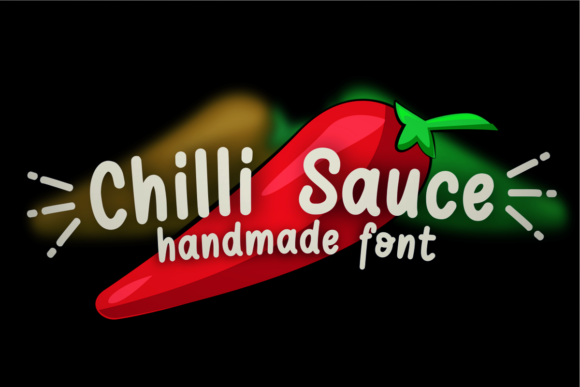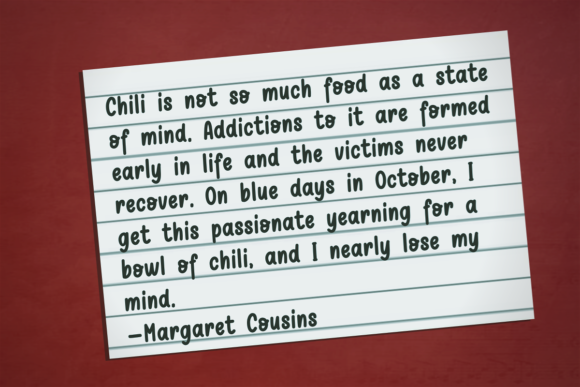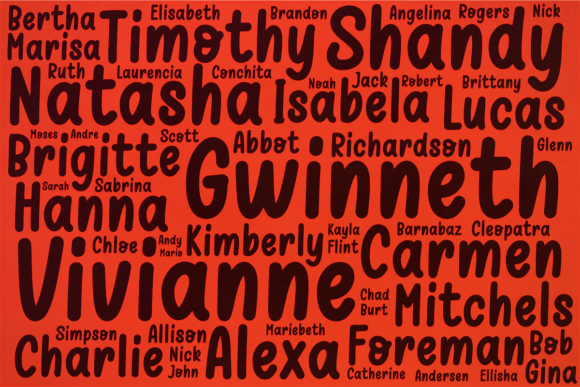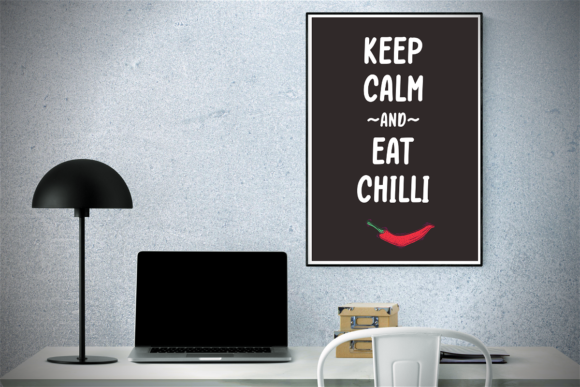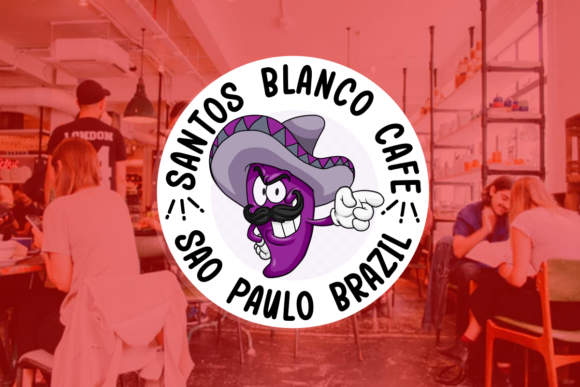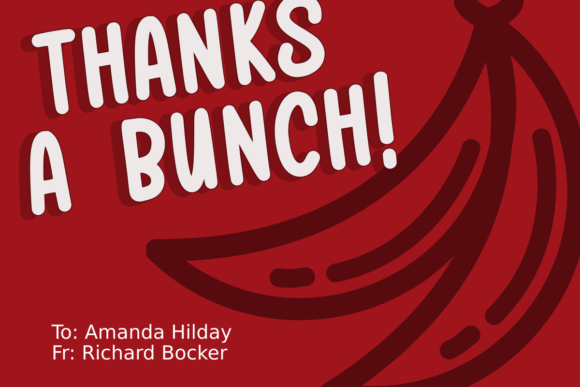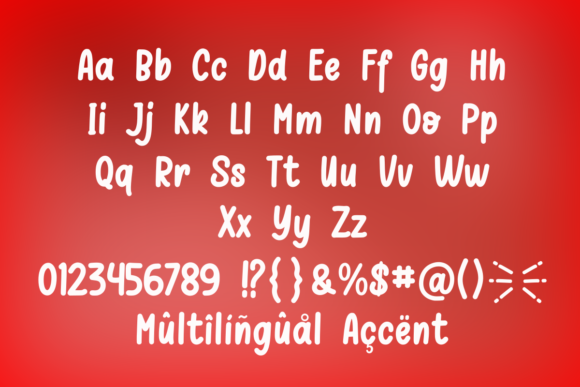
The Perfect Blend of Style and Function: Chilli Sauce Font
Have you ever found yourself stuck in a creative rut, staring at a blank canvas, wondering what’s missing to bring your design to life? That’s when the magic happens – you stumble upon the perfect font, and suddenly, everything clicks into place. For designers, this moment is a game-changer, and we’re excited to share with you our latest discovery: Chilli Sauce Font.
This chic and natural lettered handwritten font is more than just a pretty face; it’s a versatile tool designed to elevate your designs to the next level. With its neat and simple style, Chilli Sauce Font is perfect for a wide range of projects, from branding and marketing materials to digital graphics and social media posts. Whether you’re a seasoned pro or a design newbie, this font has the potential to become your go-to companion for all your creative endeavors.
Chilli Sauce Font Key Features
- Font Family: Chilli Sauce is a unique, hand-drawn font with a spicy twist, perfect for adding a bold and playful touch to designs.
- Characters and Glyphs: Chilli Sauce font includes a wide range of characters and glyphs, including Latin, Cyrillic, and Greek alphabets, as well as various punctuation and symbol sets.
- Unique Characteristics: The font’s distinctive, hand-drawn style and bold, expressive lines make it an ideal choice for designs that require a touch of personality and whimsy.
Chilli Sauce Font Review
Overall, I was quite excited to dive into the Chilli Sauce Font and see what it had to offer. As a designer, I appreciate fonts that bring a unique personality to a project.
- Playful and energetic vibe: The font’s bold lines and quirky characters give it a fun and lively feel that’s perfect for projects that need a boost of energy.
- Great for headings: The font’s larger text sizes look fantastic, making it a great choice for headings and titles.
- Unique character set: The font’s character set is diverse and includes a range of symbols and special characters that add to its charm.
- Difficult to read in smaller sizes: While the font looks great in larger sizes, it can be challenging to read in smaller sizes, making it less suitable for body text.
- Limited language support: The font’s character set is mainly focused on Latin-based languages, which may limit its use for projects that require support for other languages.
While the Chilli Sauce Font has its limitations, its unique personality and playful vibe make it a great choice for projects that need a bold and energetic feel. It’s perfect for headings and titles, but may not be the best choice for body text or projects that require extensive language support.
Chilli Sauce Font is a unique and bold font that can be used in various design contexts. Some common use cases include:
- Headlines and titles for a bold and eye-catching effect.
- Product packaging and branding for a unique and memorable look.
- Social media graphics and ads for a bold and attention-grabbing effect.
Remember to use the font consistently throughout your design to maintain a cohesive look and feel.